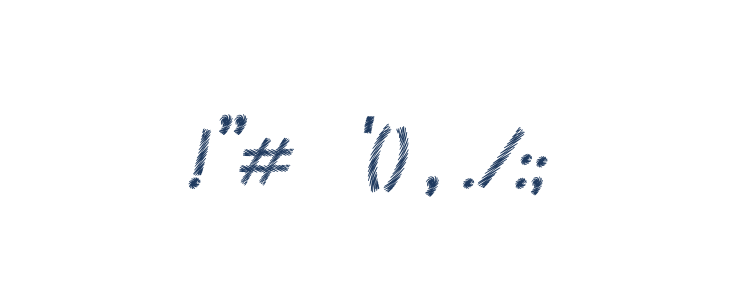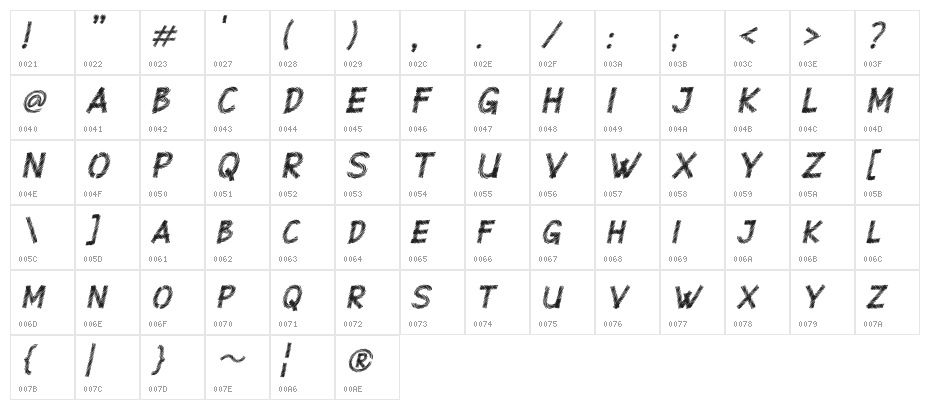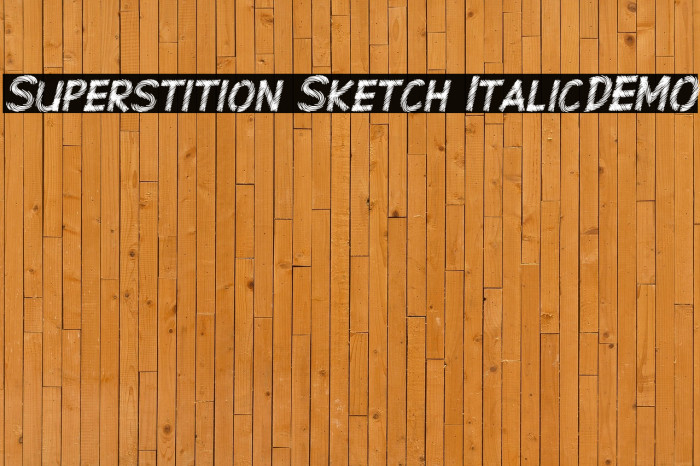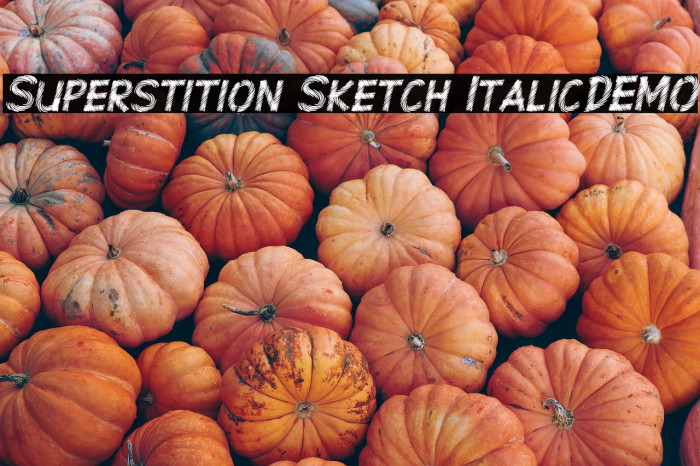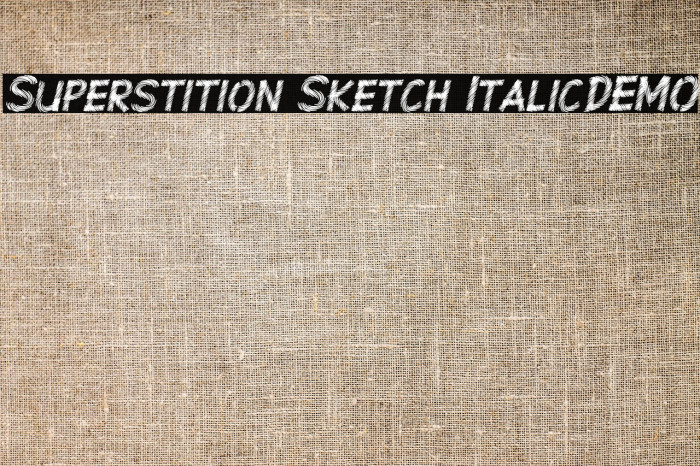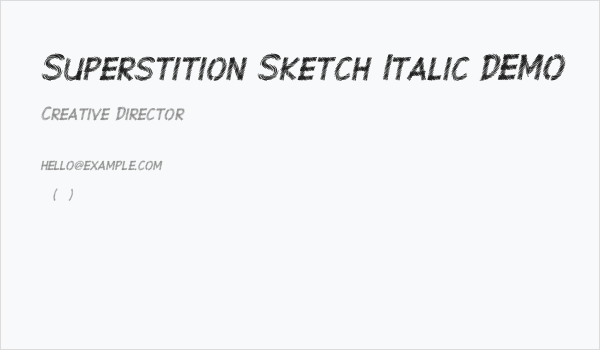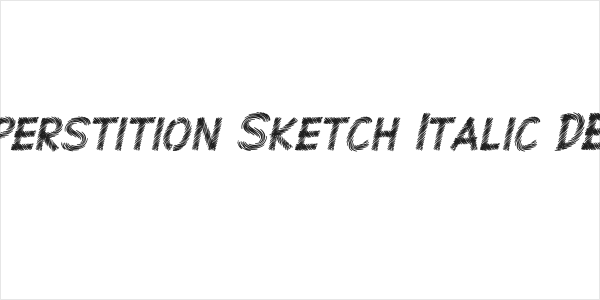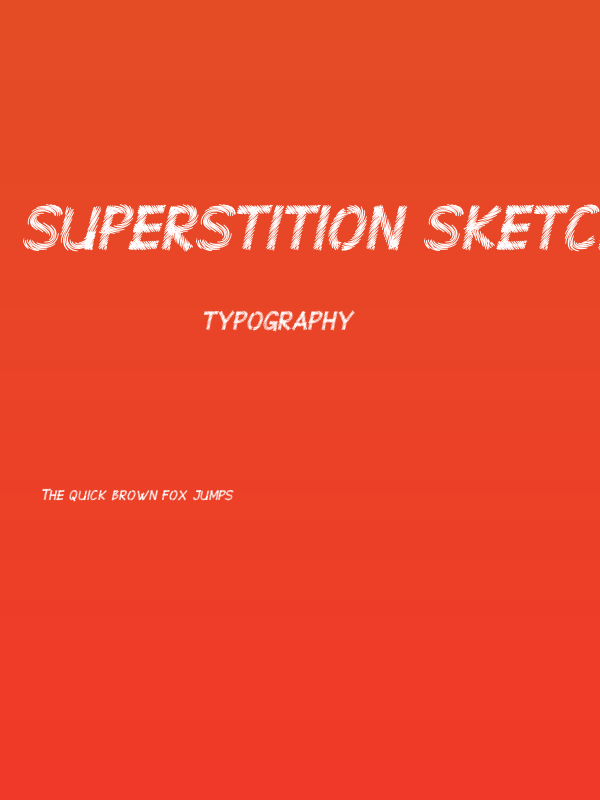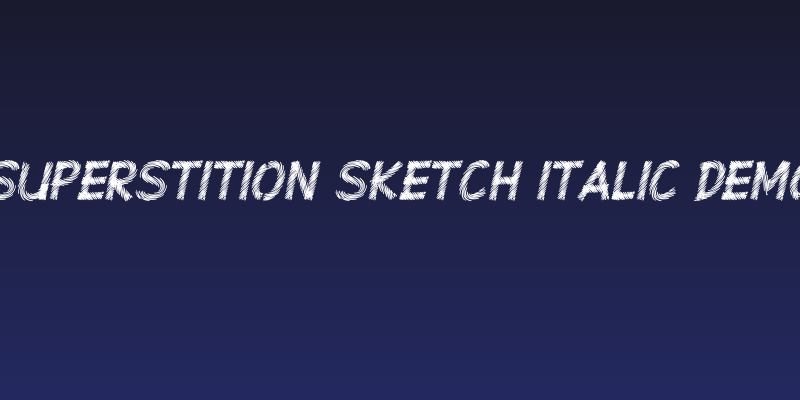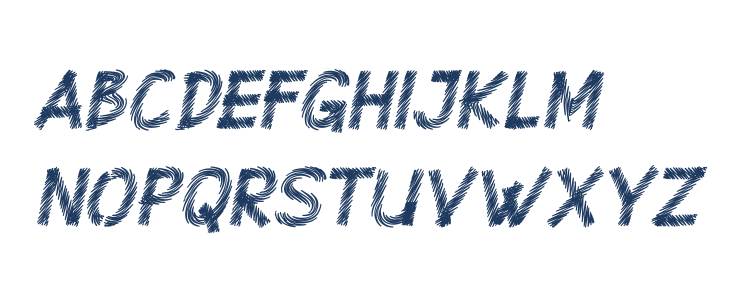
Superstition Sketch Italic-DEMO Font
Superstition Sketch Italic-DEMO Description
This font features a dynamic and sketch-like appearance, characterized by its italicized and bold strokes. The letters are crafted with a hand-drawn effect, giving them a textured and artistic look. Each character appears as if it has been sketched with a series of overlapping lines, creating a sense of movement and energy. The uppercase and lowercase letters maintain a consistent style, with a slightly slanted orientation that enhances the italic effect. The numerals and special characters follow the same sketchy design, ensuring uniformity across the typeface. This font's unique style makes it stand out, offering a creative and informal aesthetic.